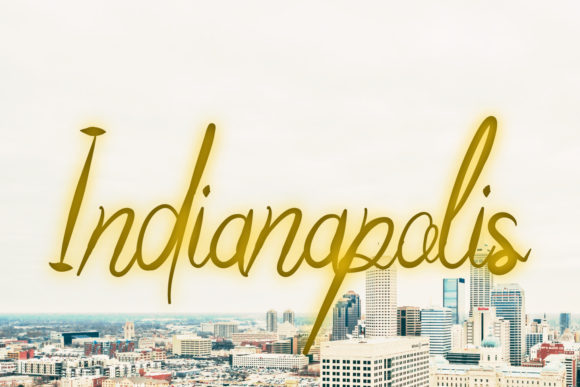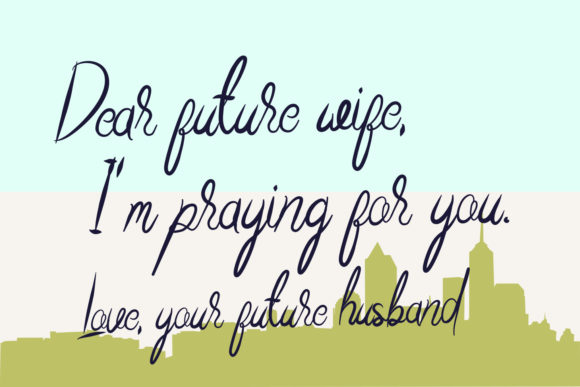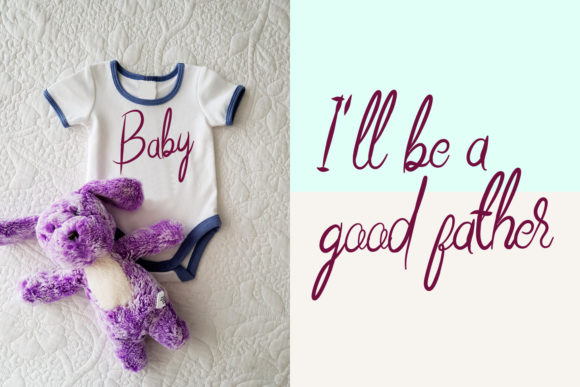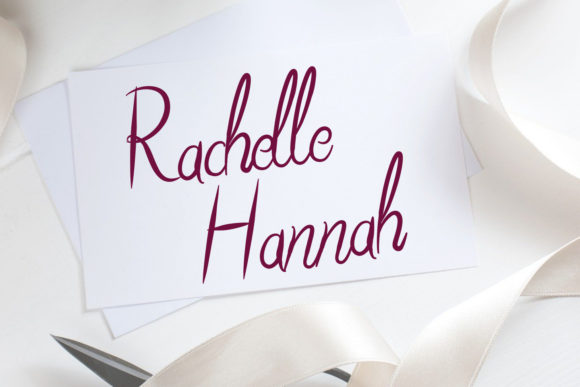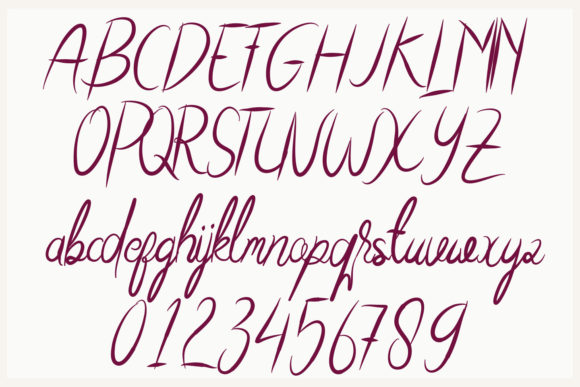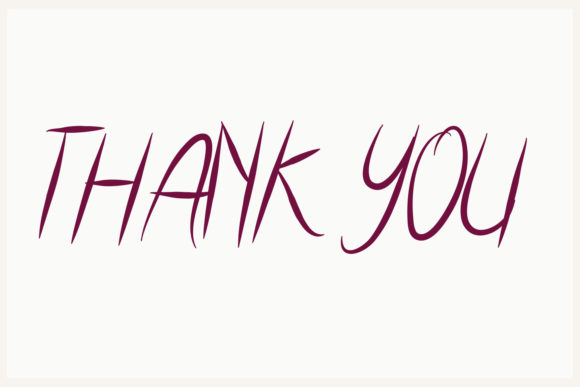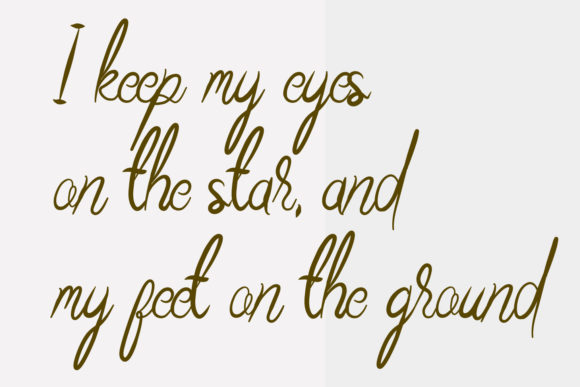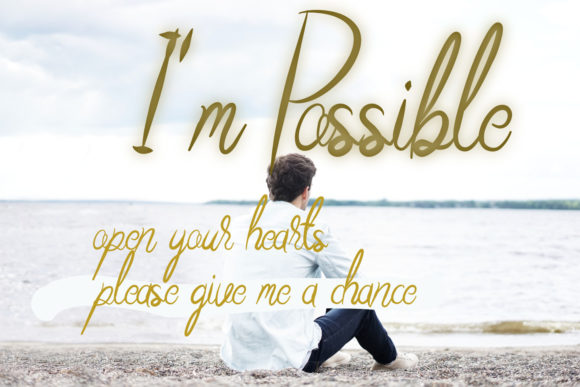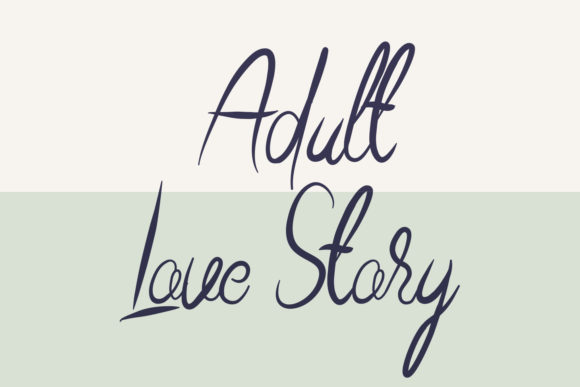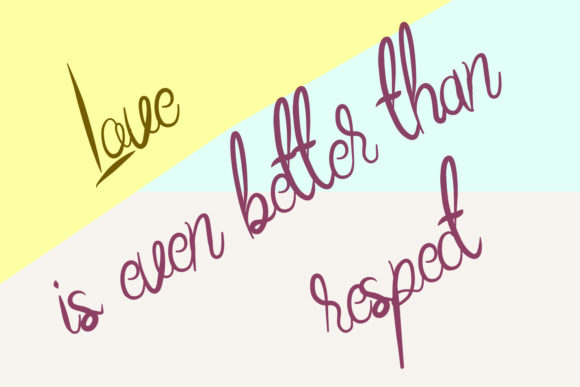
Indianapolis Font
About Indianapolis Font
Indianapolis is a beautiful script calligraphy with a modern style. It will elevate a wide range of design projects to the highest level, be it branding, headings, wedding designs, invitations, signatures, logos, labels, and much more!